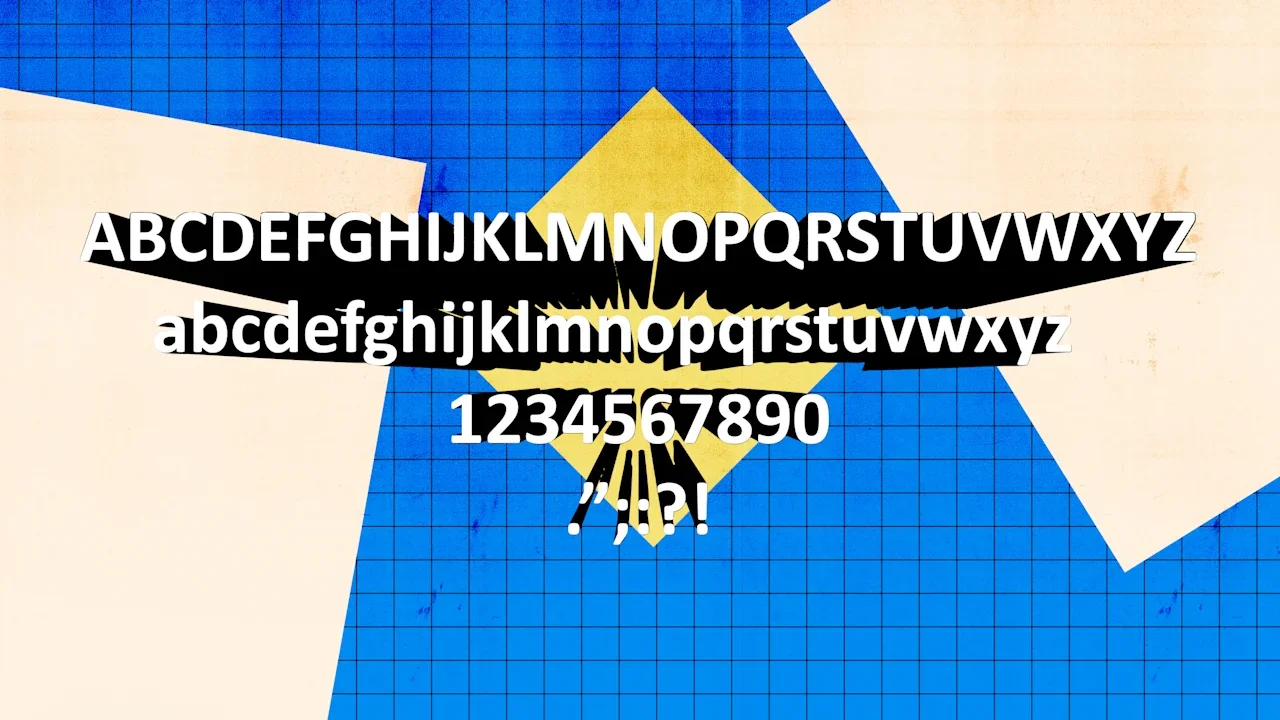
A brief history of Calibri, the ‘woke’ font the Trump administration is replacing
Calibri and Times New Roman have been at war for years. And now the two fonts are once again pitted against each other after the U.S. State Department declared it will be swapping its current official typeface, Calibri, for Times New Roman. It’s a full circle moment, considering the State Department ditched Times New Roman for Calibri in just 2023.
Secretary of State Marco Rubio wrote that switching to Calibri was “wasteful” and “achieved nothing except the degradation of the department’s official correspondence” in an internal department memo obtained by Reuters and The New York Times.
The type designer behind the sans-serif font Calibri calls Rubio’s decision “hilarious and regrettable.”
Lucas de Groot designed Calibri in 2007 specifically for readability on computer screens. The width and curvature of its simple letterform was optimized to be easy to read, and it replaced Times New Roman as the default font in Microsoft Office in 2007 (before being replaced by Apotos in 2023).
In 2023, the State Department decided to replace Times New Roman with Calibri for all official communications and memos. It was a bid for greater accessibility throughout the organization. At the time, then Secretary of State Antony Blinken said, Times New Roman “can introduce accessibility issues for individuals with disabilities who use Optical Character Recognition technology or screen readers.”
Not everyone was happy about the decision, but de Groot believes it was the right choice.
“There were sound reasons for moving away from Times,” de Groot tells Fast Company in an email. “Calibri performs exceptionally well at small sizes and on standard office monitors, whereas serif fonts like Times New Roman tend to appear more distorted.”
A DEI typeface
In the cable, sent with the subject line “Return to Tradition: Times New Roman 14-Point Font Required for All Department Paper,” Rubio called Calibri “informal” and said it “clashes” with State letterhead. He also criticized it as a “radical” diversity, equity, inclusion, and accessibility initiative.
Former Secretary of State Antony Blinken made the 2023 change to Calibri at the recommendation of the department’s office of diversity and inclusion due its accessibility and ease to read for people with disabilities. Now it’s getting swept up in The President’s wider war on woke.
Serif typefaces, with their small feet, or serifs, on the letterform, are sometimes perceived to be more conservative. Meanwhile, some believe that sans-serifs read as more modern and progressive, though that’s far from a hard-and-fast rule. After all, The President loves a sans-serif font, and Sen. Bernie Sanders’s has leaned into serif typography for his campaign logos.
“Serif fonts are often perceived as more traditional, but they are also more demanding to use effectively,” says de Groot, noting the spacing is noticeably inconsistent in all-caps Times New Roman in words like “Chicago” and the font appears too thin and sharp when printed at high quality.
For many readers, though, font preference has less to do with politics than it does personal taste and what they’re used to seeing. There were inter-office complaints when the State Department switched to Calibri that sound an awful lot like normal office grumblings when one has to switch from Slack to Teams.
“I think the idea that a typeface is woke is kind of ridiculous,” says type designer Jonathan Hoefler, who designed the Biden-Harris typography and is the co-author of Gotham, a typeface that’s now been used by presidential candidates of both parties.
Typefaces aren’t good or bad, he says. They are simply designed to solve different problems. Times New Roman was designed for newspaper text and Calibri was designed for a screen.
“None of these are bad typefaces, they’re just designed around their circumstances,” he says.